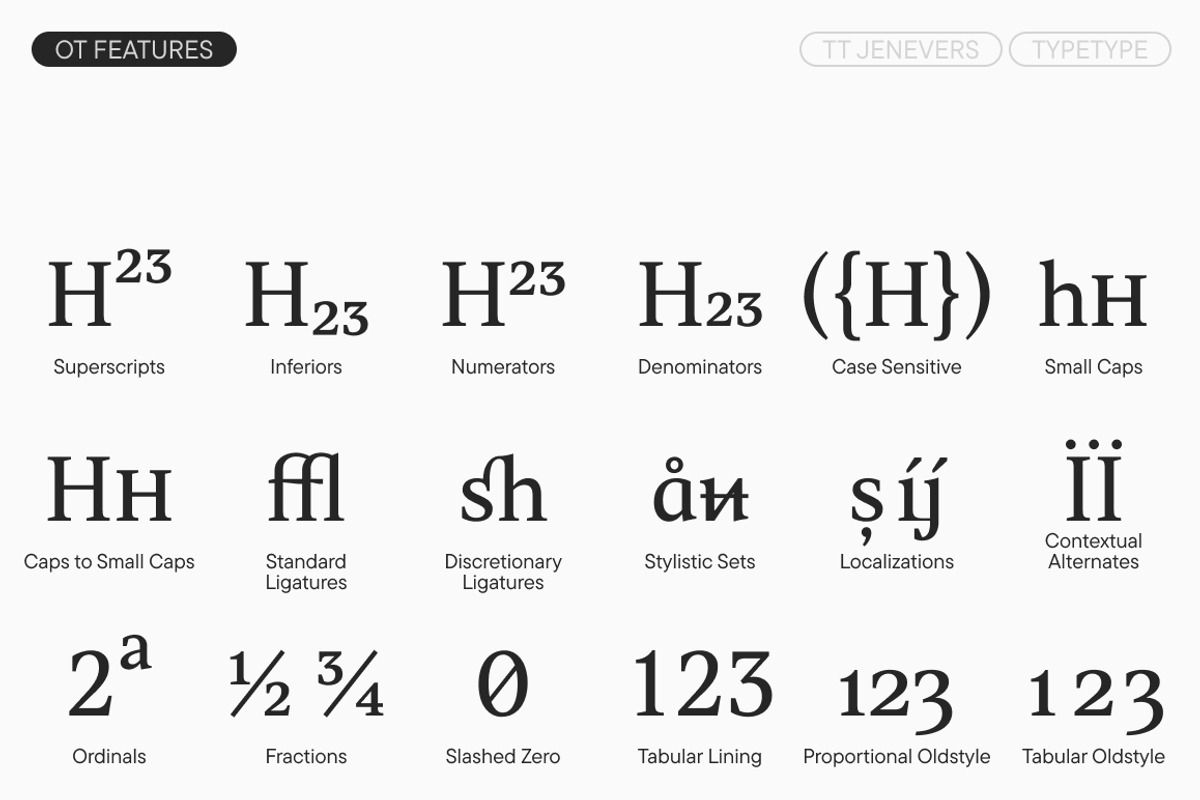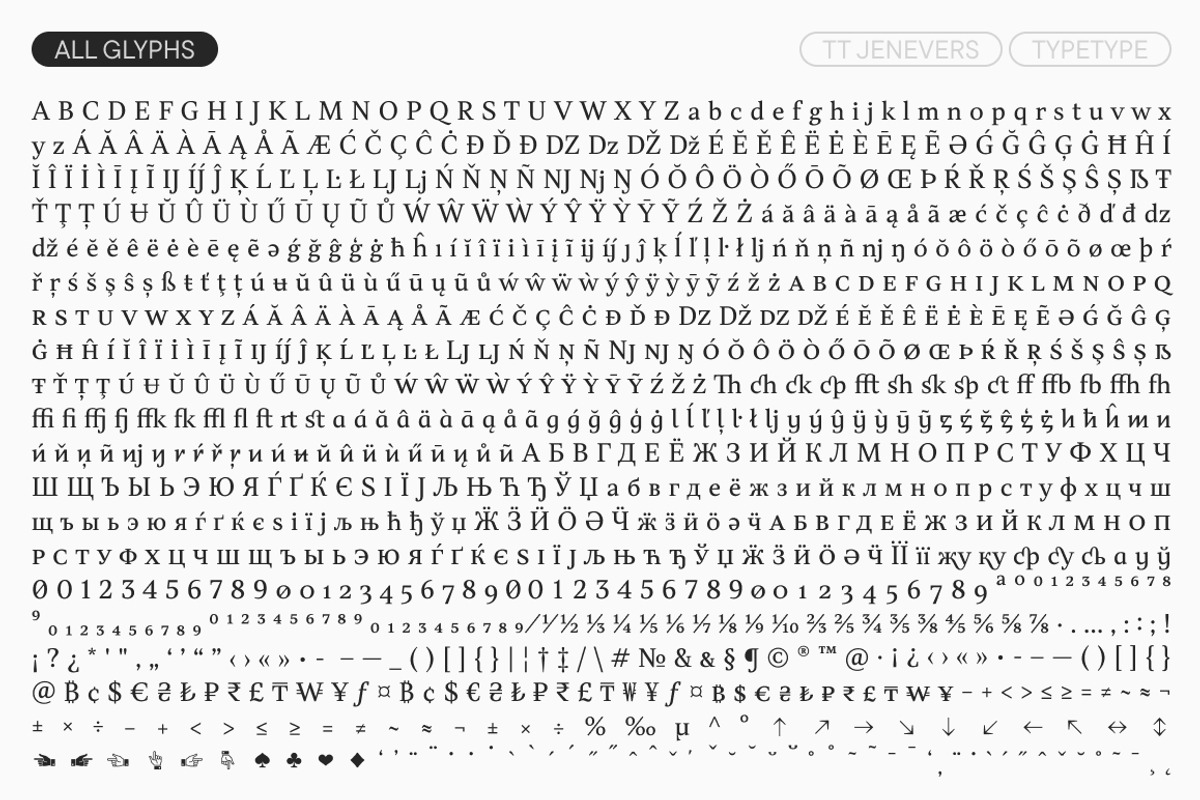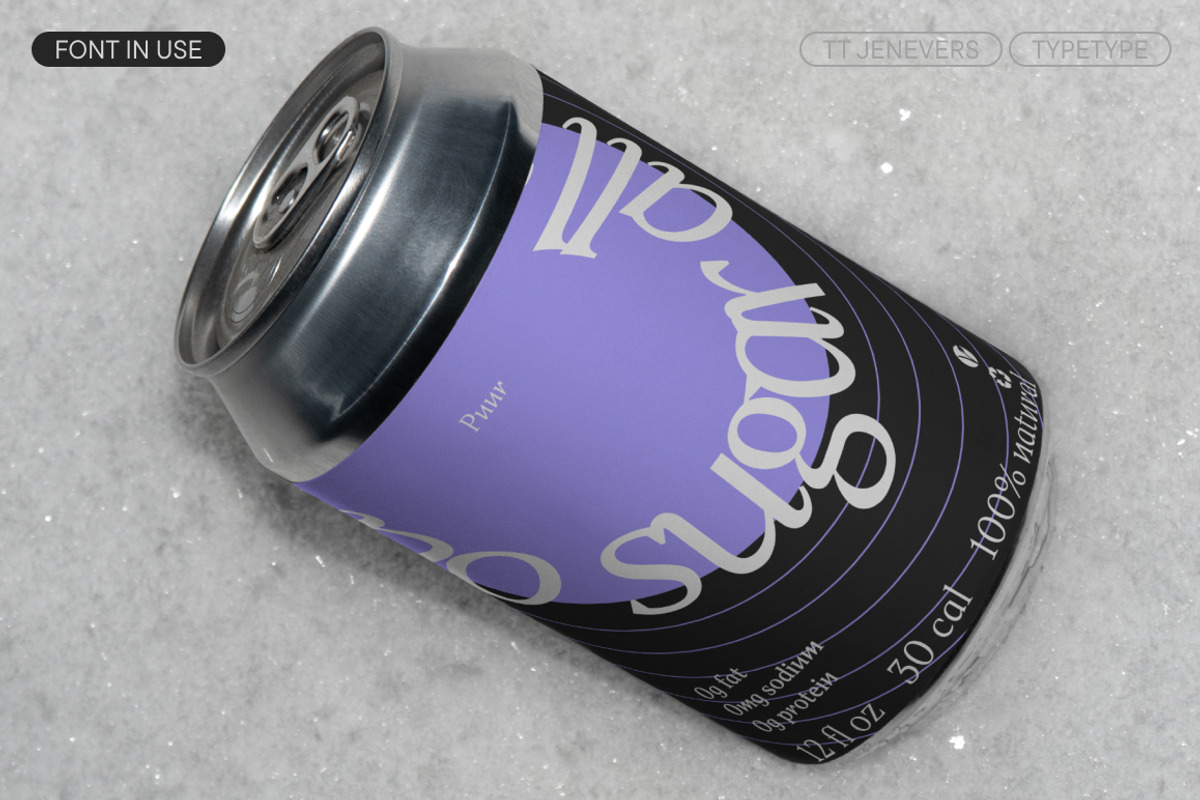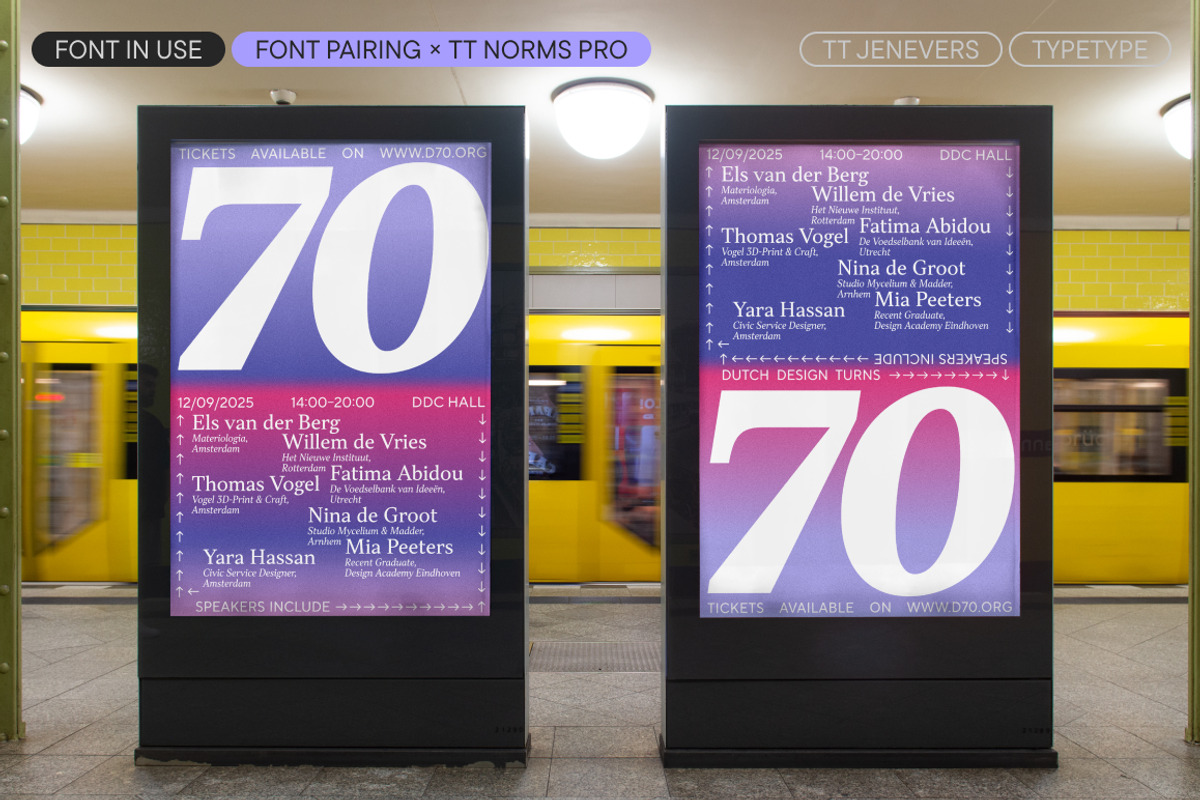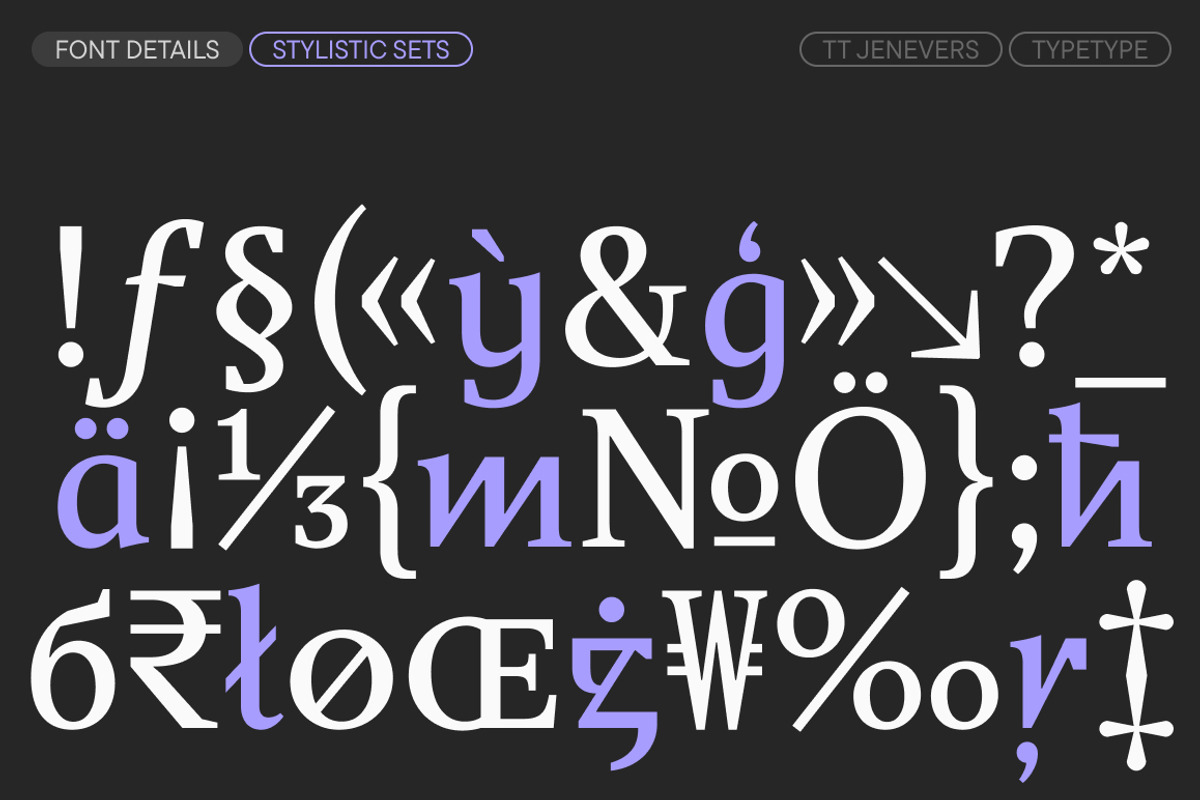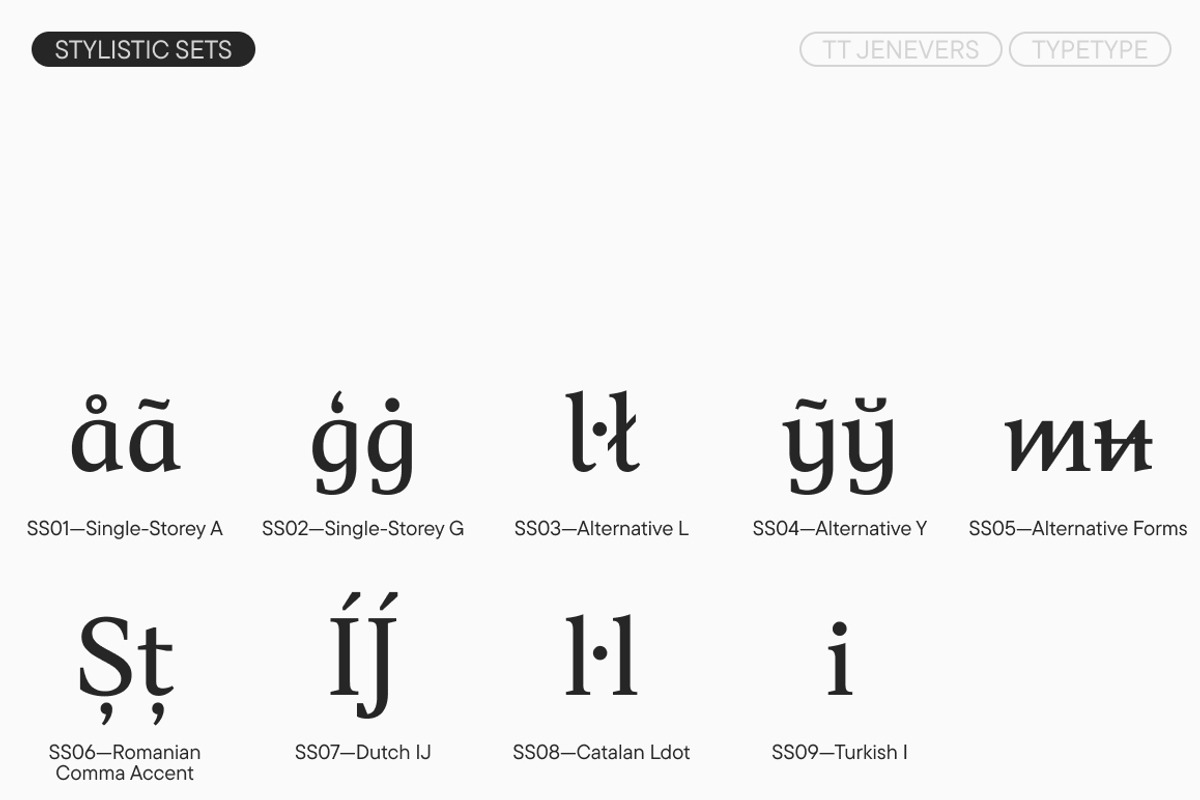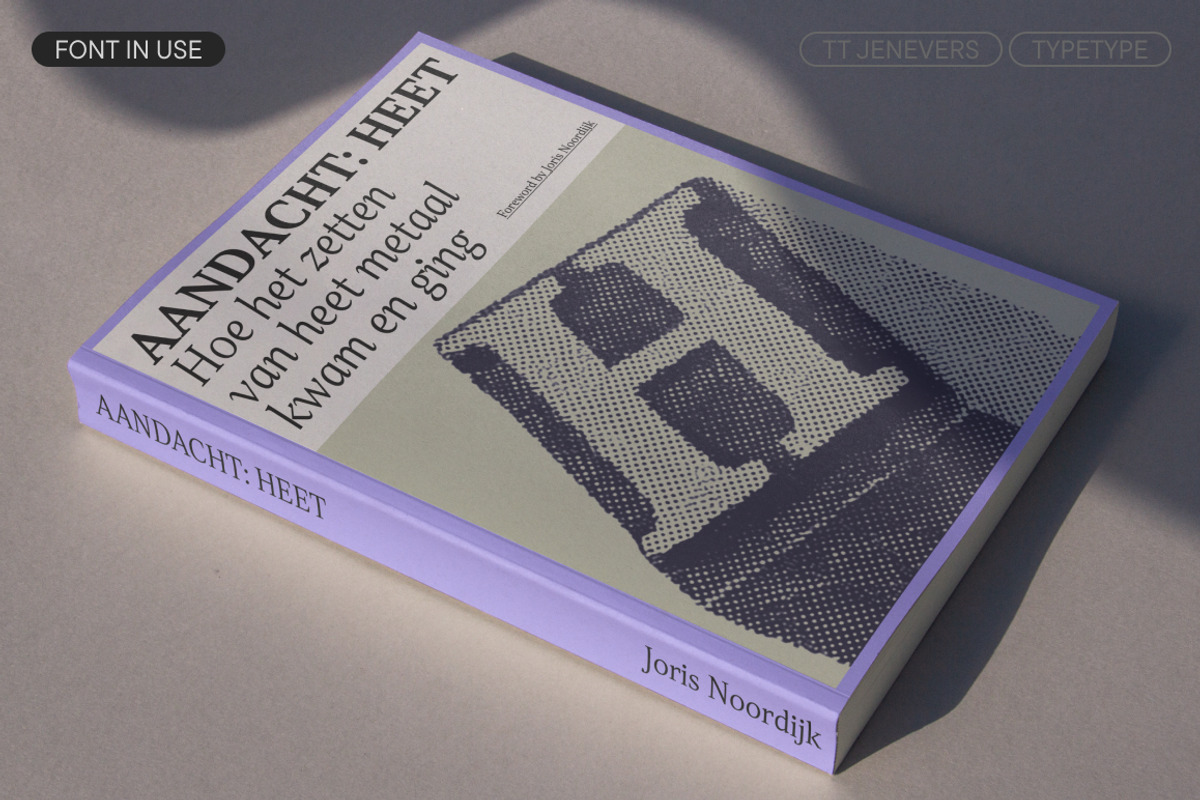
TT Jenevers
Introducing TT Jenevers version 1.200! We've updated the typeface: we've added new glyphs, features, languages, and variable styles, and also enhanced the typeface's technical components.
TT Jenevers is a Dutch modern serif typeface. It has characteristic details typical of this font style: for example, asymmetrical serifs and an irregular slant of the ovals. For instance, the letter 'o' has no slant, while 'p' and 'q' do. The italic styles included in the typeface are slightly narrower than the uprights—this was done to create a denser texture in text setting.
TT Jenevers includes five stylistic sets that allow you to change the font's character—making it more calligraphic or adding sharpness and a futuristic feel. The typeface also includes small caps for Cyrillic and Latin, ligatures, standard and oldstyle figures, and other useful features.
In the updated version, the character set has been expanded—most notably, fractions have been added. The typeface's functionality has been significantly expanded thanks to two new variable fonts—one for the upright weight and one for the italic weight. Additionally, we performed a thorough manual kerning review and added manual hinting to all styles.
The typeface is quite versatile in its application. The generous proportions of its lowercase and uppercase characters give TT Jenevers a strong display quality. At the same time, the large, open semi-ovals of the lowercase characters maintain high legibility and prevent blurring, which allows the font to be used comfortably in text blocks.
TT Jenevers—a serif that knows how to surprise!
Full list of OpenType features: aalt, ccmp, ordn, locl, case, frac, ssinf, subs, sups, numr, dnom, tnum, onum, lnum, pnum, c2sc, smcp, SS01 (Single-storey a), SS02 (Single-storey g), SS03 (Single-storey l), SS04 (Single-storey y), SS05 (Alternative Forms), SS06 (Romanian Comma Accent), SS07 (Dutch IJ), SS08 (Catalan Ldot), SS09 (Turkish i), dlig, liga, calt, zero.